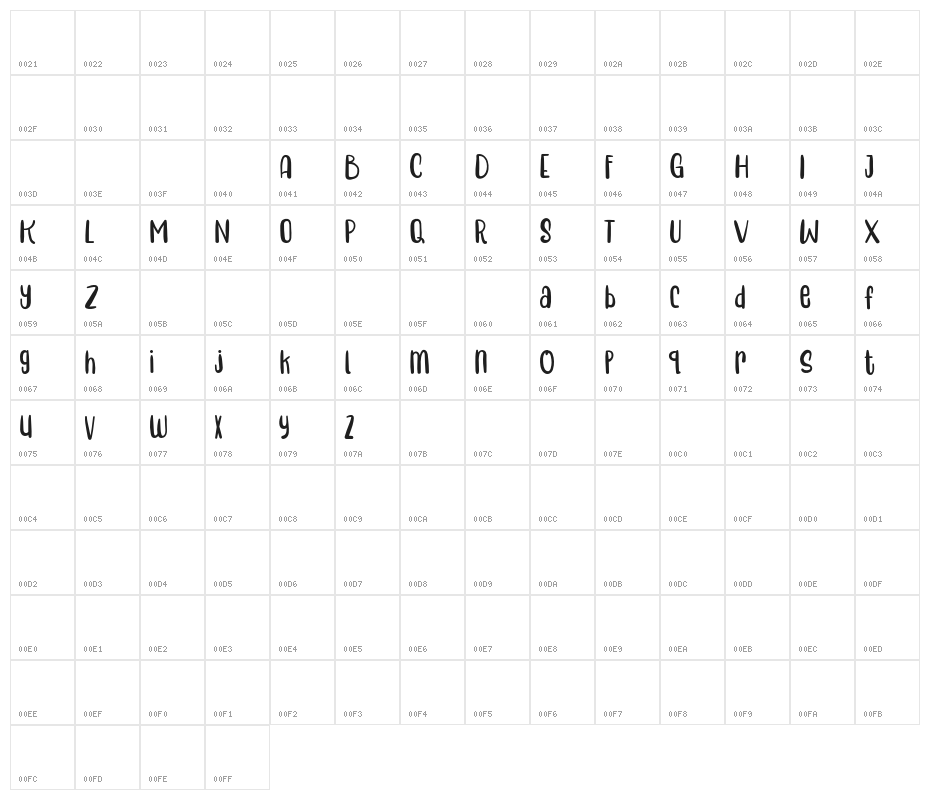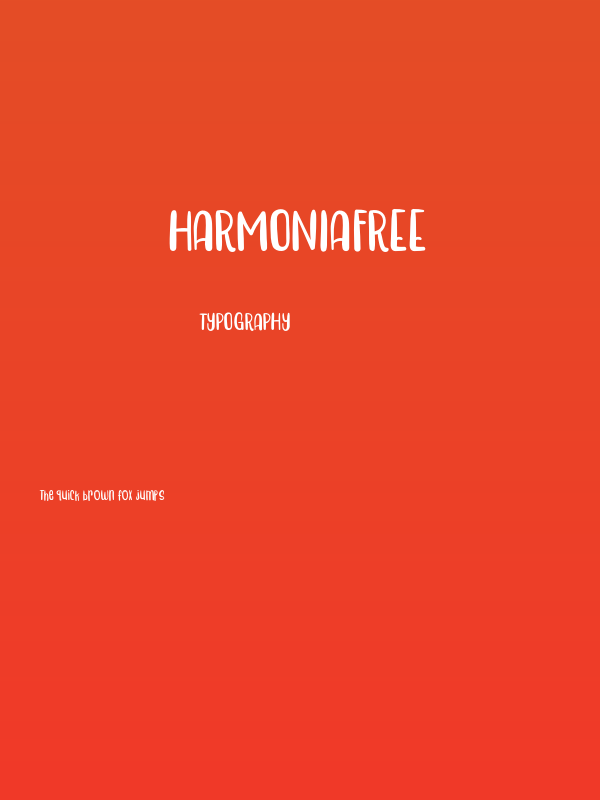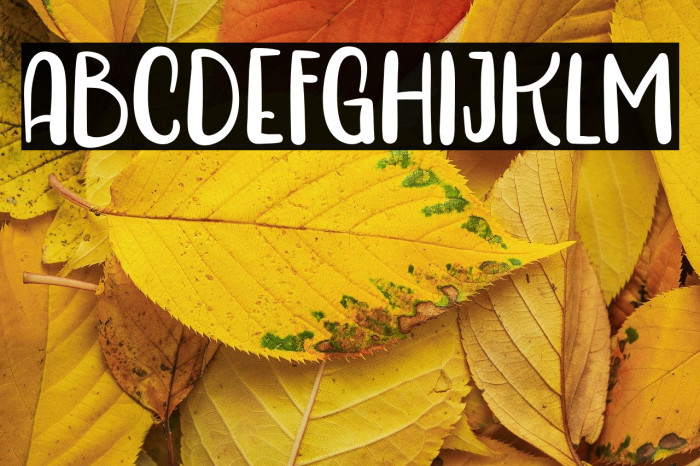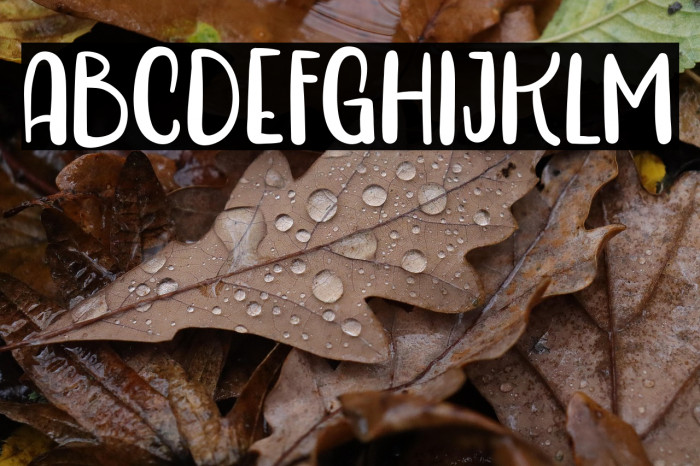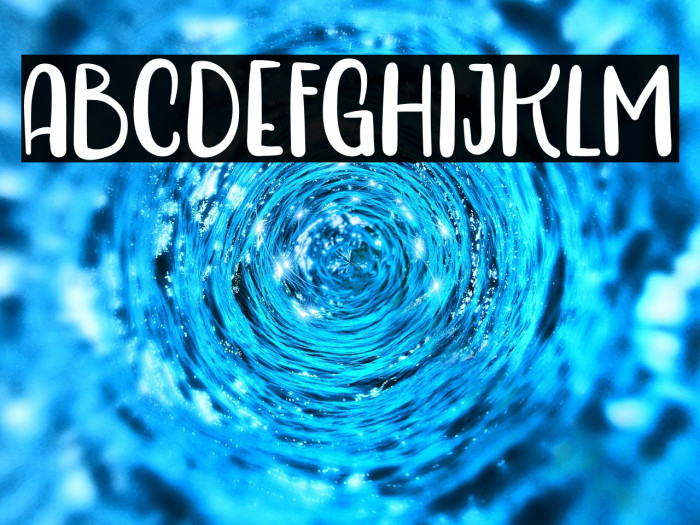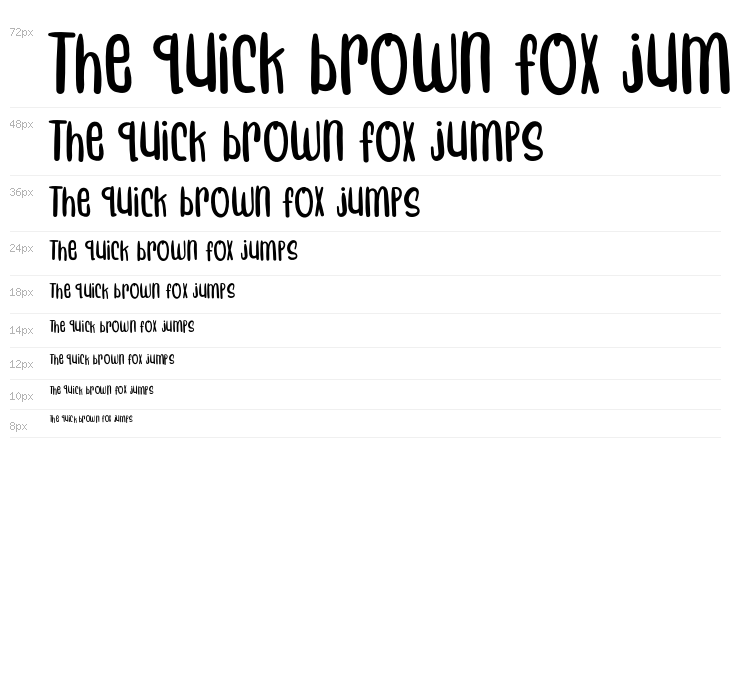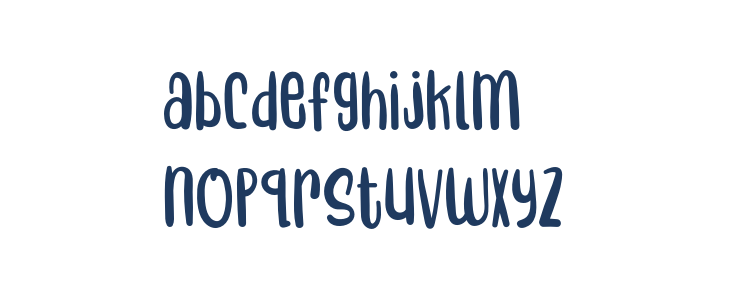
HarmoniaFREE Font
HarmoniaFREE Description
This font features a playful and casual handwritten style, characterized by its rounded and smooth letterforms. The strokes are consistent in thickness, giving it a uniform appearance. The letters have a slight slant, adding to the informal and friendly feel. The uppercase and lowercase letters are well-balanced, with a slight variation in height that enhances its charm. The font is versatile, suitable for both digital and print media, and can be used to convey a sense of warmth and approachability.
| Use Case | Logos, Headlines, Informal Text |
| Proposed Projects | Ideal for greeting cards, children's books, social media graphics, and branding projects that require a friendly and approachable look. |